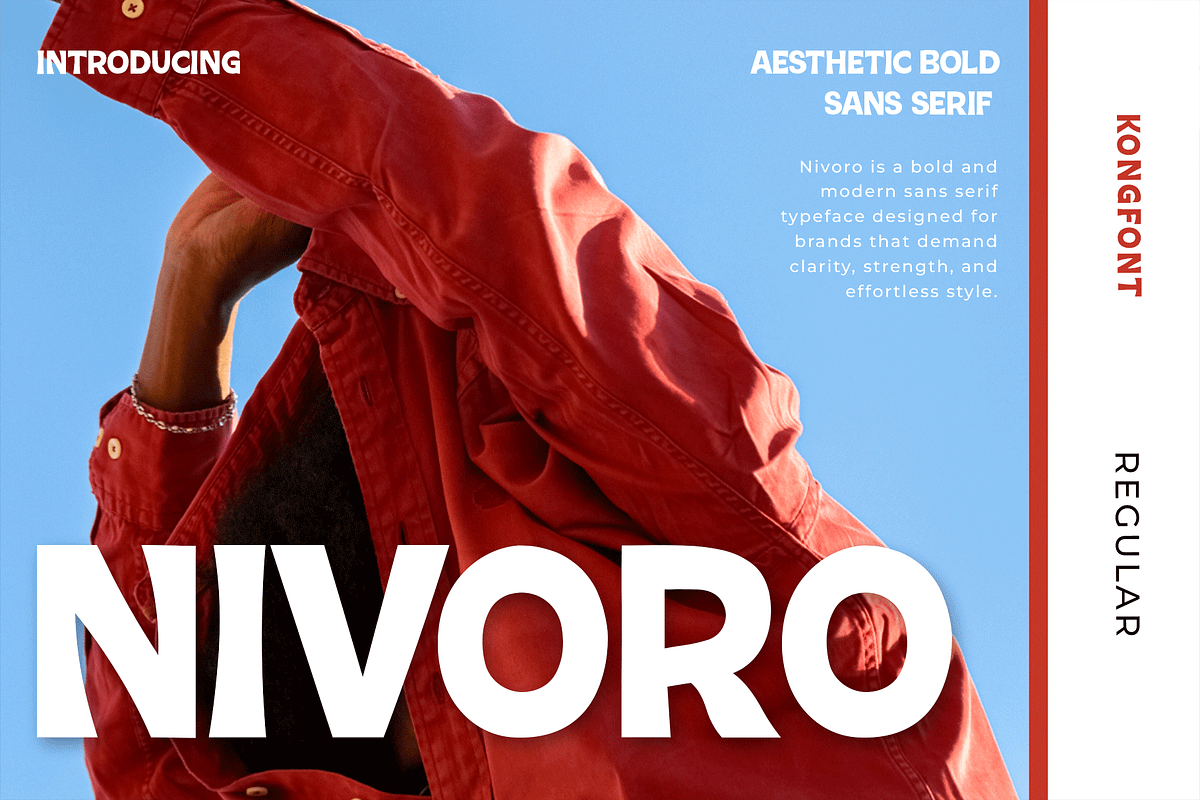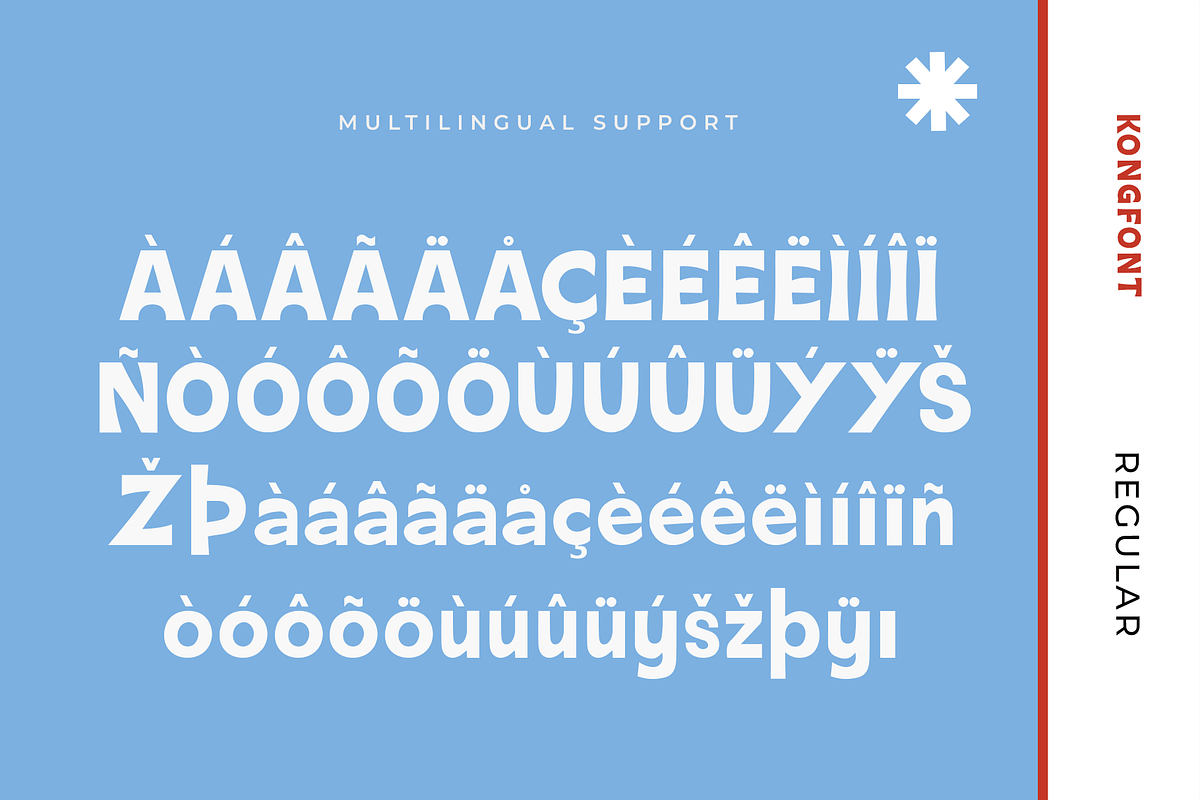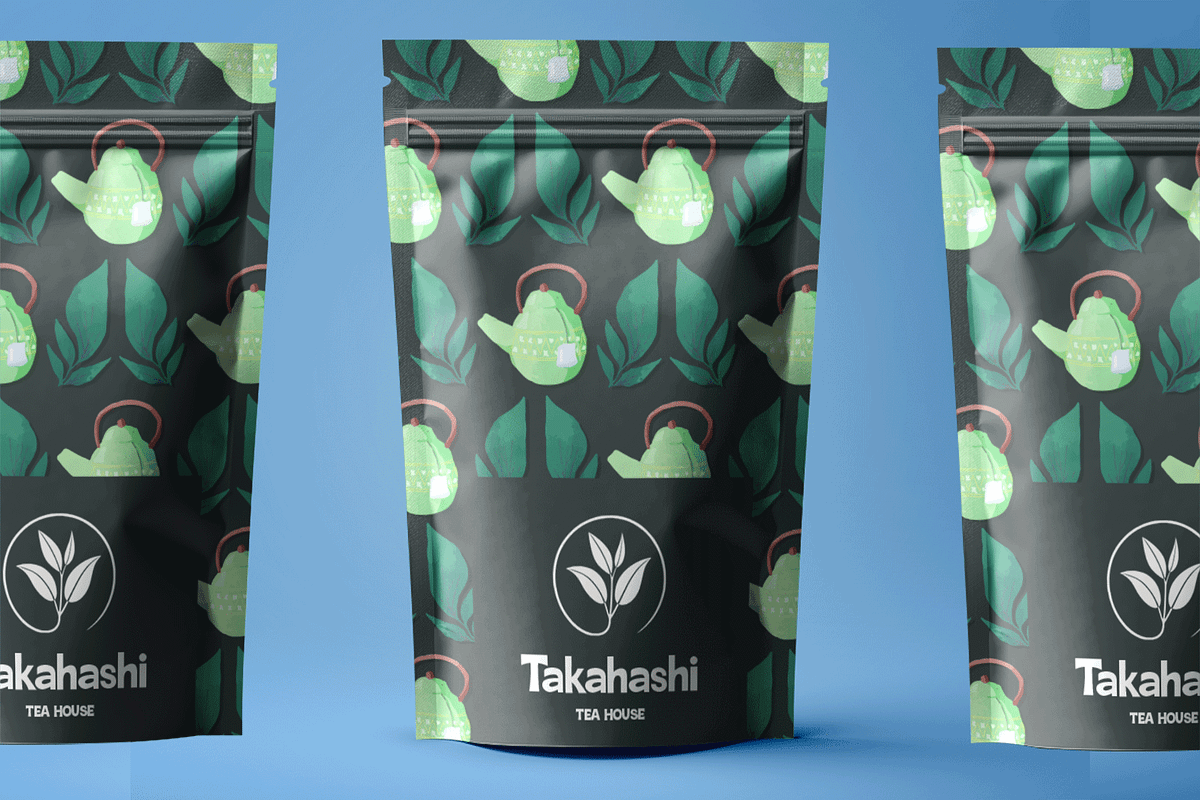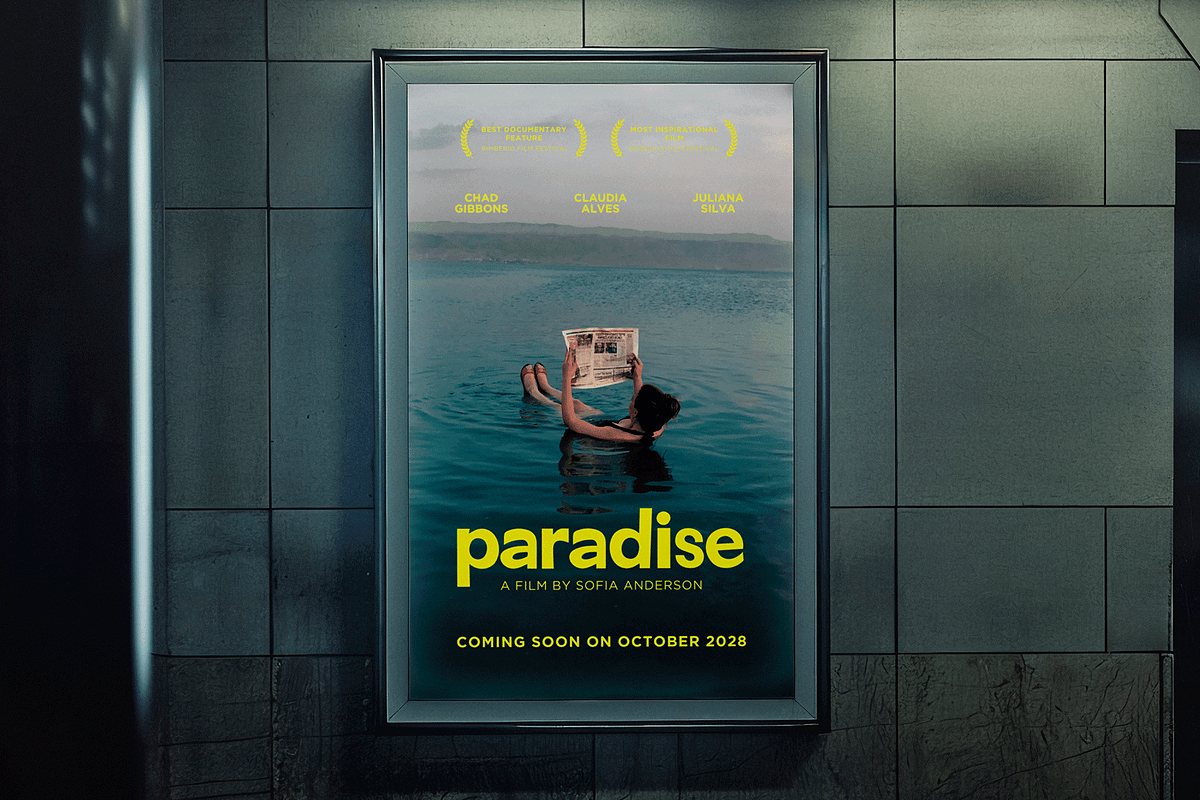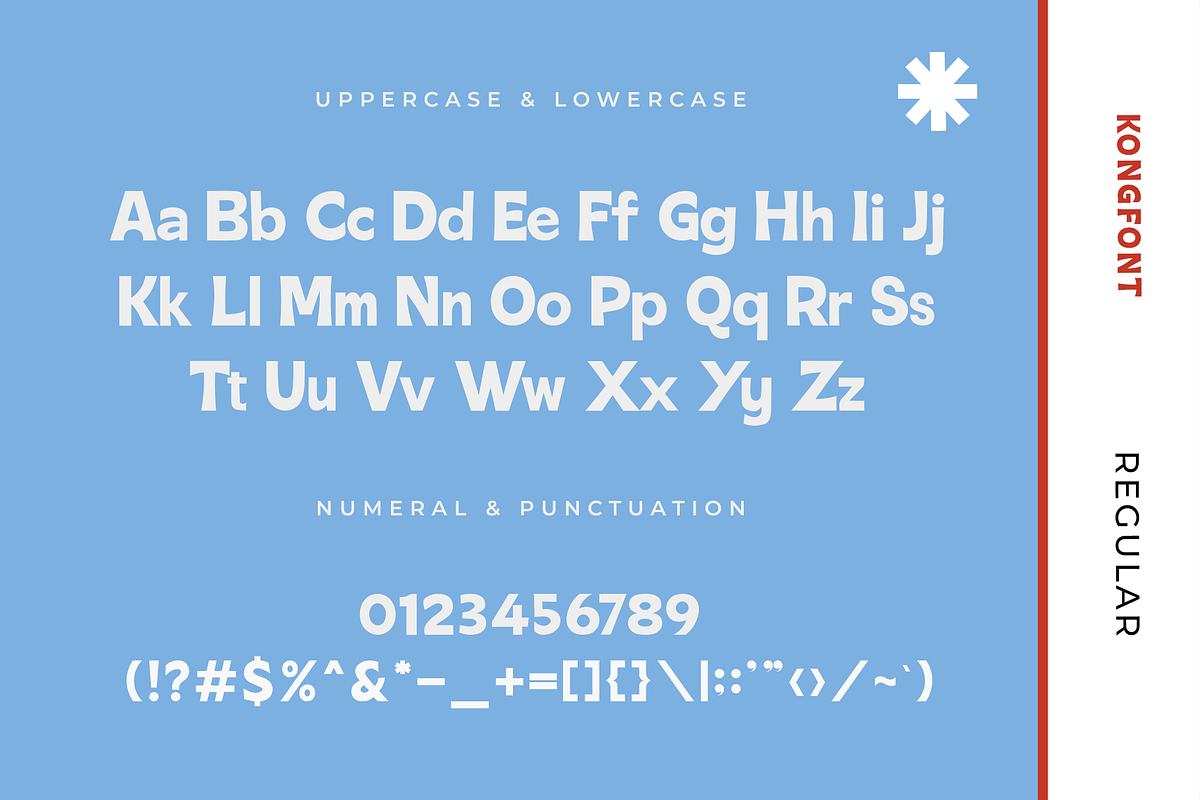
Nivoro – Aesthetic Bold Sans Serif
Introducing Nivoro, an aesthetic bold sans serif font that blends clean geometry with striking modern presence. Designed for creatives who crave clarity and impact, Nivoro delivers a powerful visual identity that’s perfect for branding, headlines, posters, logos, website headers, and editorial layouts.
With its thick strokes and well-balanced letterforms, Nivoro offers a confident tone that commands attention without being overwhelming. Whether you're crafting a high-fashion brand or a minimal tech presentation, this font brings a fresh, bold character that elevates your design.
Give your next project a bold yet refined edge with Nivoro — where aesthetics meet assertiveness.